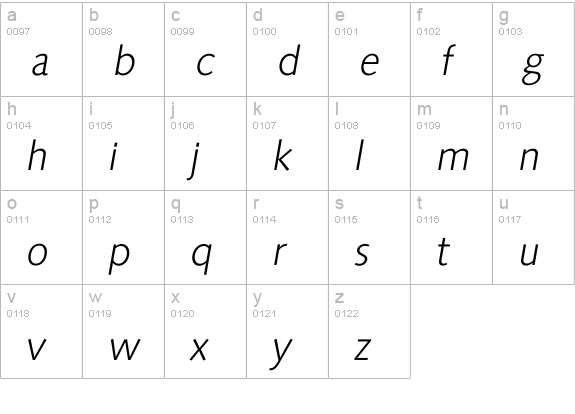
Isaxony Light is a refined, elegant variant in the Isaxony typeface family \xE2\x80\x94 well suited to elegant body text, refined sub-headings, and luxury branding.
Isaxony Light is a stunning and elegant font that exudes a sense of sophistication and modernity. With its delicate and refined letterforms, this font is perfect for adding a touch of class to any design project. The slender strokes and graceful curves of Isaxony Light create a harmonious balance that is visually pleasing to the eye. One of the most appealing aspects of Isaxony Light is that it is completely free. That's right, you can download this exquisite font at no cost from FontsMarket.com. Whether you are a graphic designer, a website developer, or simply someone who appreciates beautiful typography, Isaxony Light is a must-have in your font collection. The versatility of Isaxony Light is another reason why it stands out among other fonts. It can be used for a wide range of design purposes, from elegant invitations and wedding stationery to sleek logos and branding materials. Its clean and legible letterforms make it perfect for both print and digital projects. Isaxony Light is a true gem in the world of fonts, offering a timeless and sophisticated aesthetic that will elevate any design. Its free availability at FontsMarket.com makes it accessible to everyone, regardless of budget or project scope. So why wait? Download Isaxony Light today and let its beauty and elegance enhance your next creative endeavor.